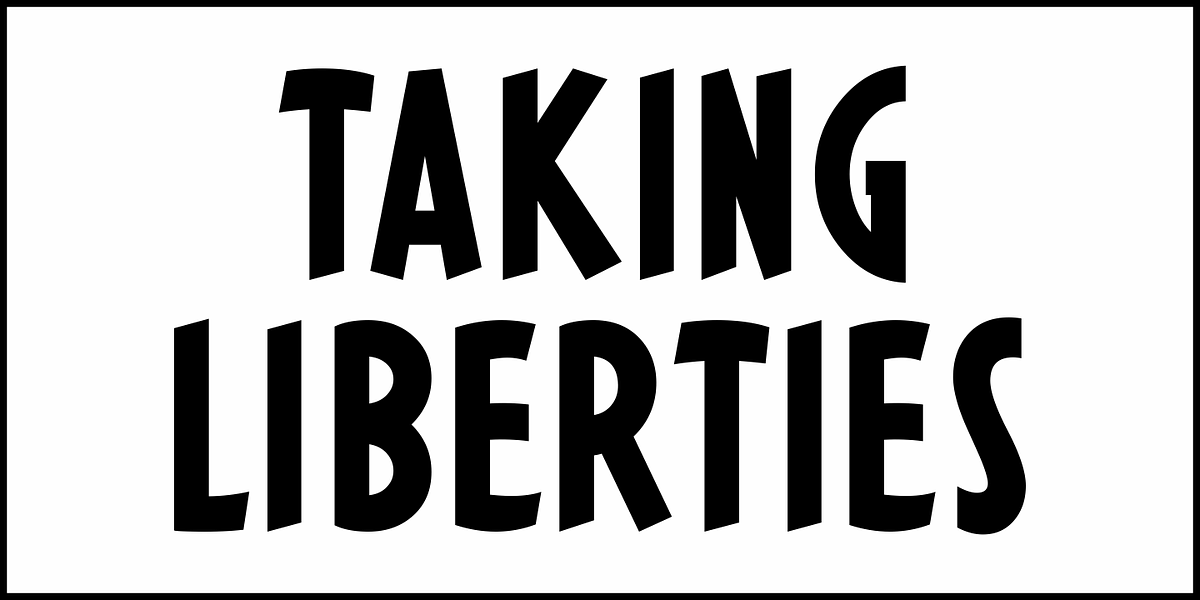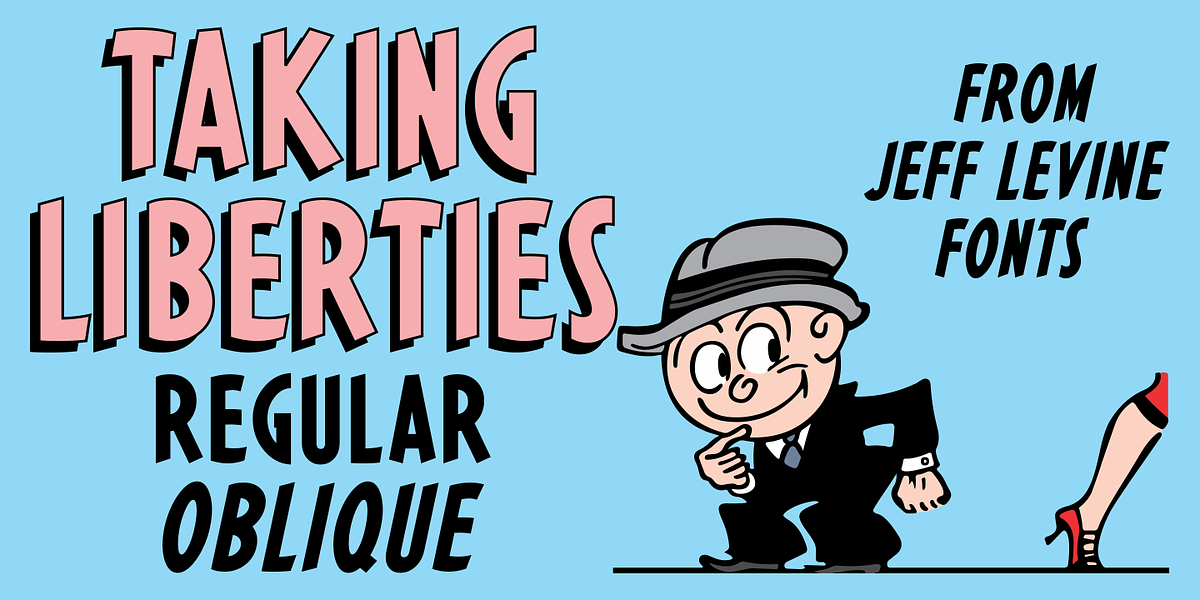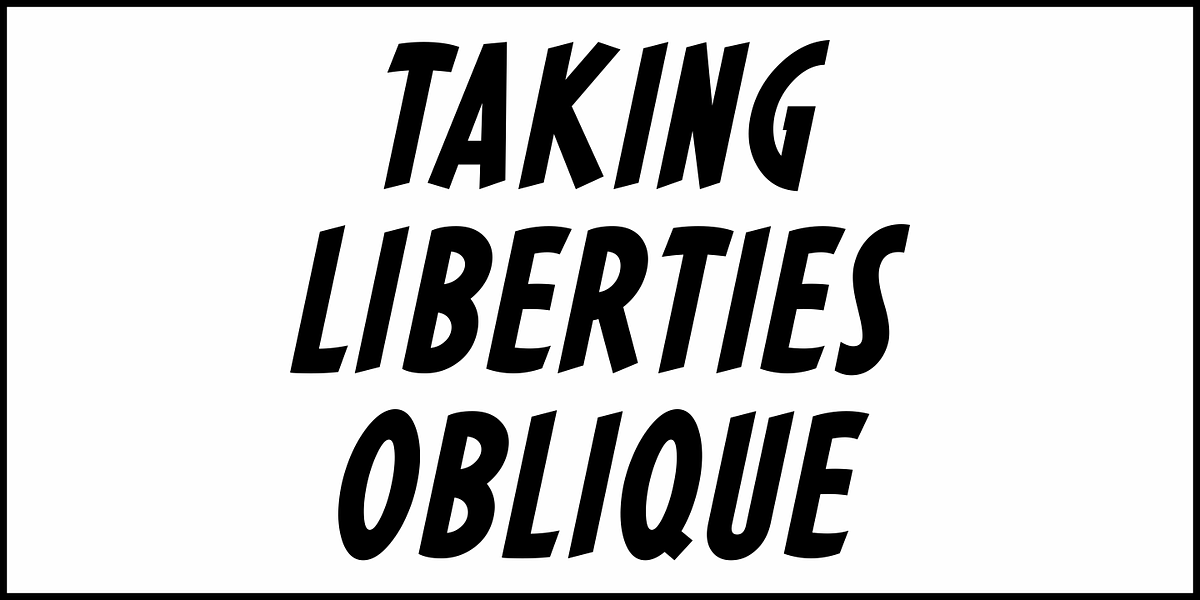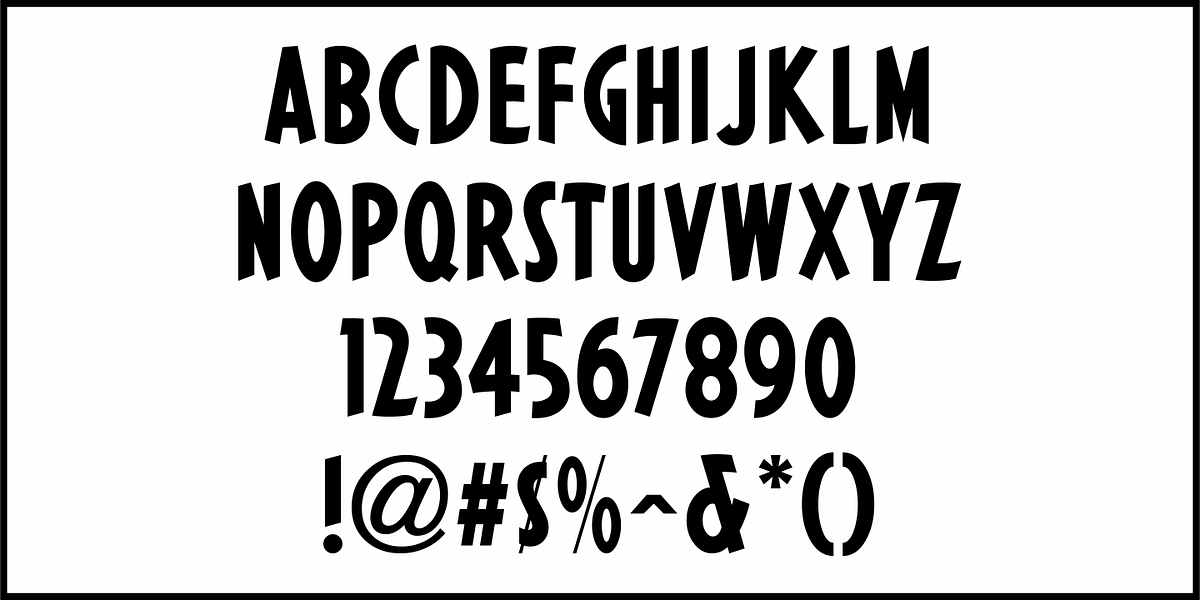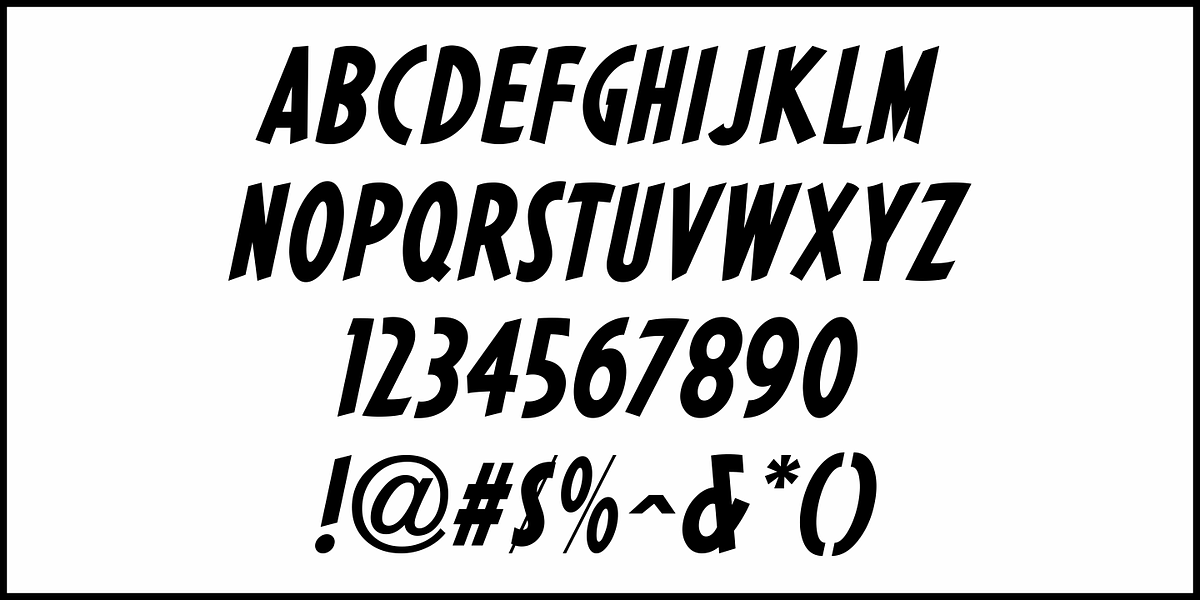
Taking Liberties JNL
Within the pages of the April 16, 1938 issue of Liberty Magazine was found a hand lettered condensed typeface with a fun attitude that’s perfect for casual and informal titling.
Because the art of lettering allows for taking liberties with letterforms, and as this came from Liberty Magazine as an inspiration source, it was only fitting that the typeface would be named Taking Liberties JNL. It is available in both regular and oblique versions.